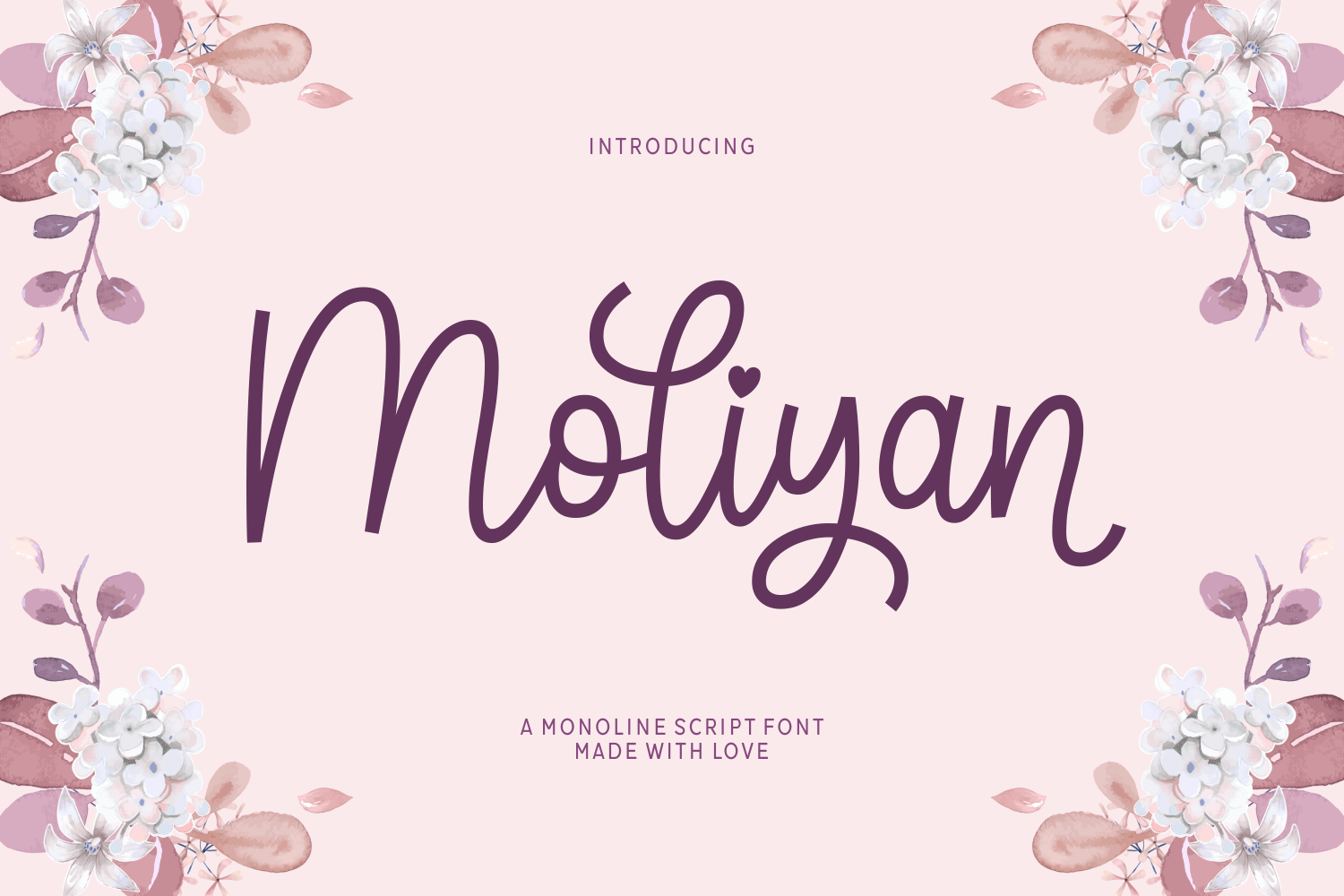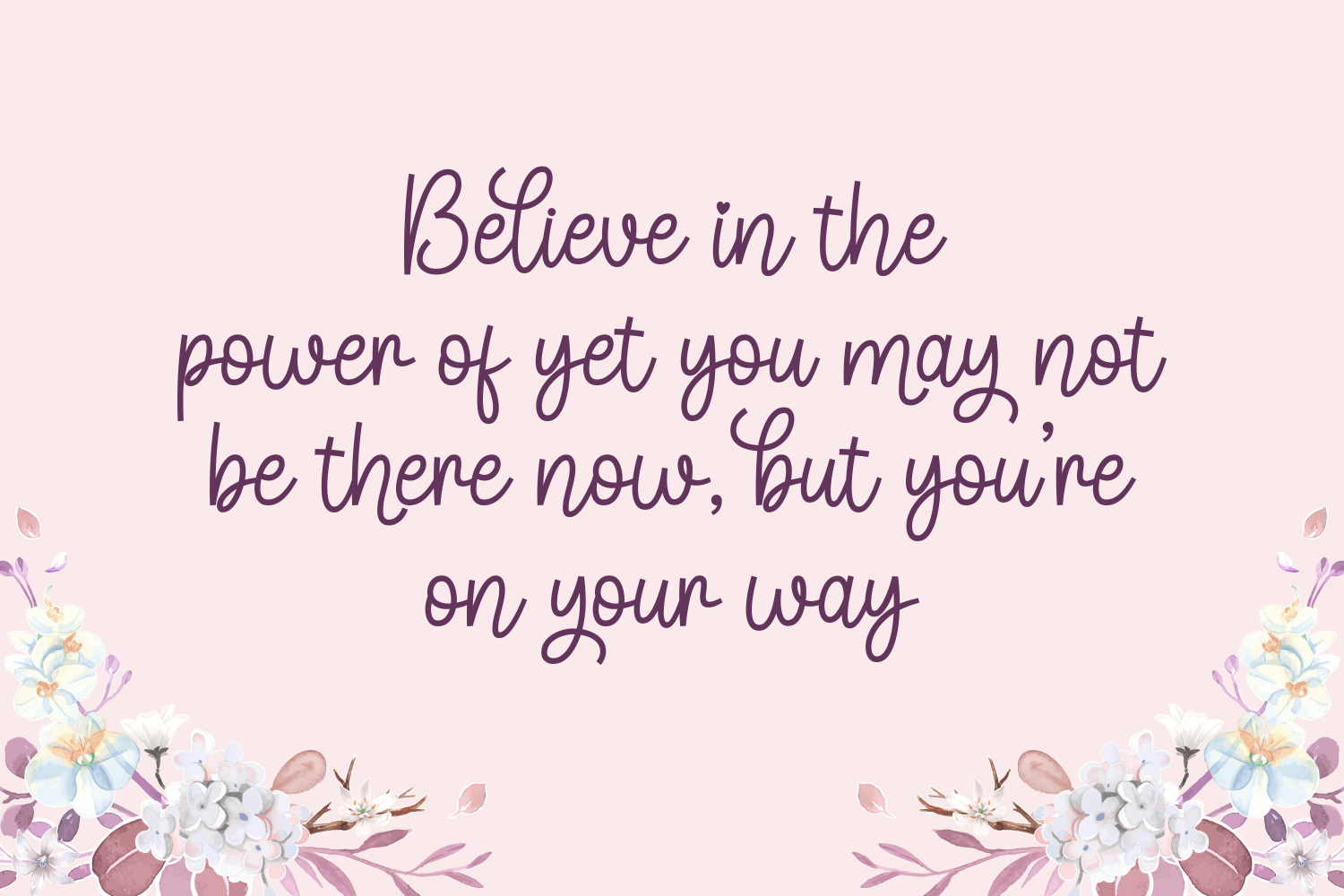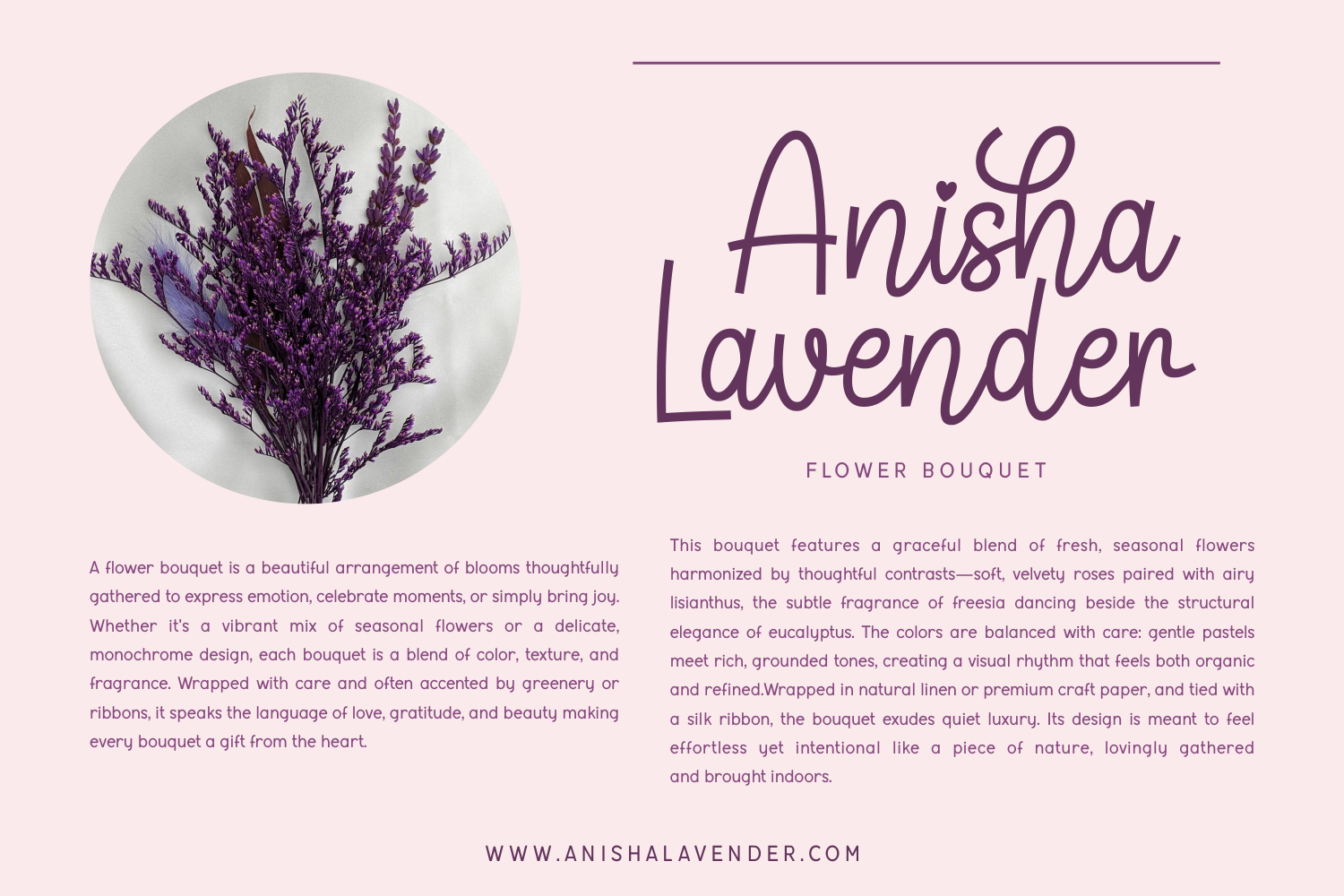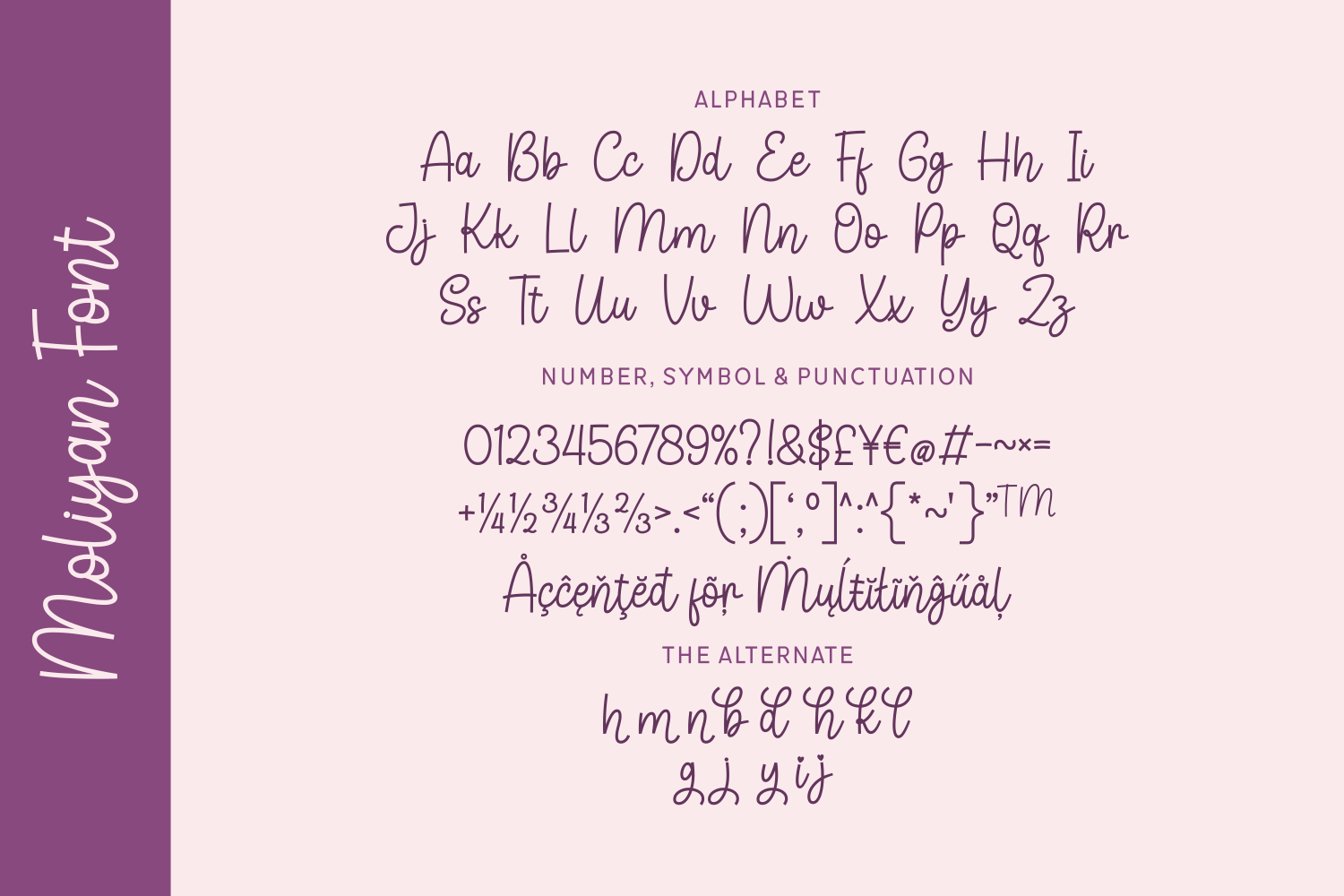
Moliyan is a graceful monoline script font that captures the essence of love, softness, and handwritten charm.
The font comes fully equipped with uppercase and lowercase letters, numerals, punctuation, multilingual characters, and a set of alternates to enhance its versatility.